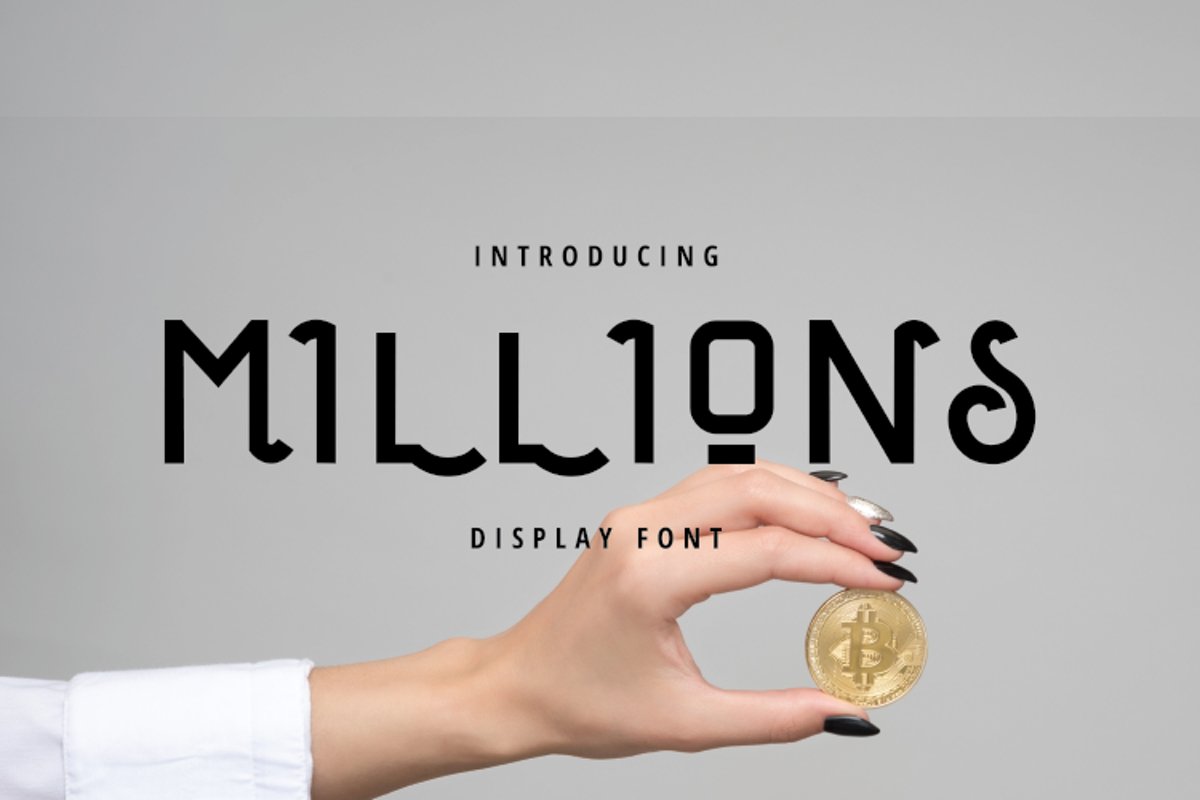
Millions Display Font
Millions
Hi, friend. introduce my new font with the name "millions". This font is semi-vintage style and belongs to the display font category.
if you like thick fonts, clean and a little vintage element. then you must have this font. This font you can use for anything according to your needs